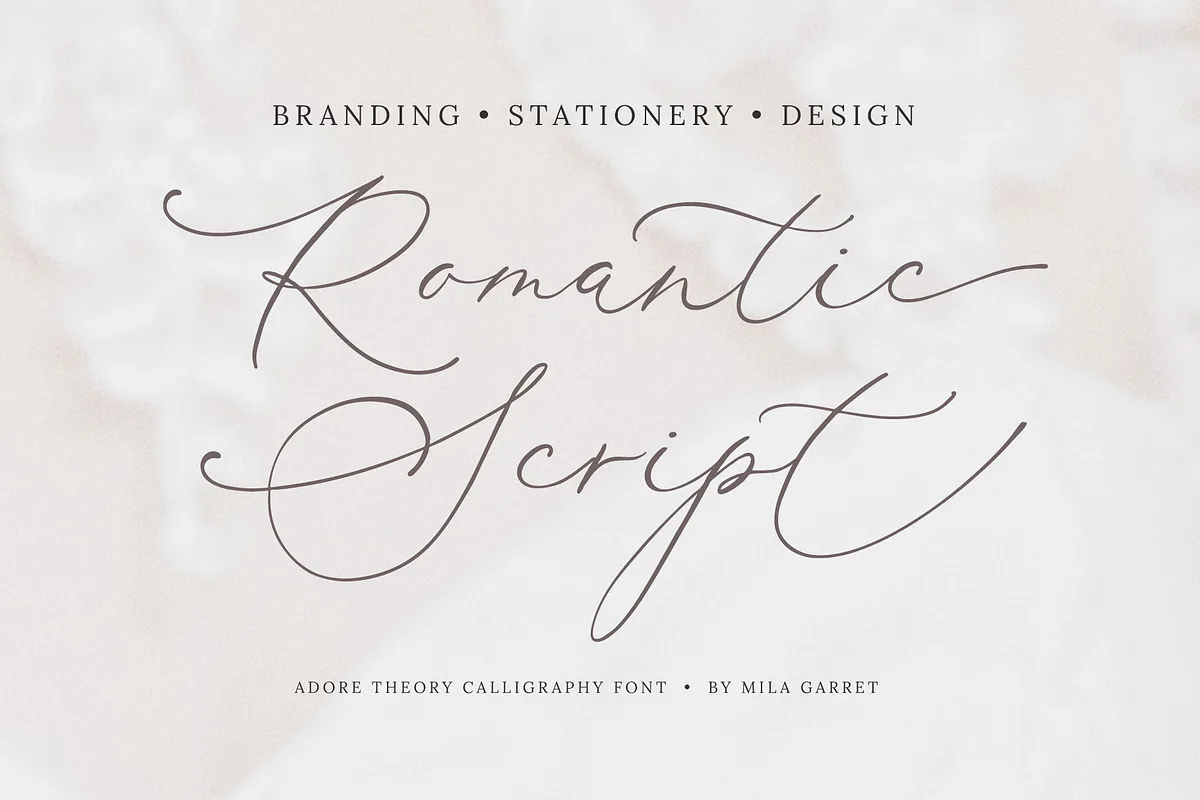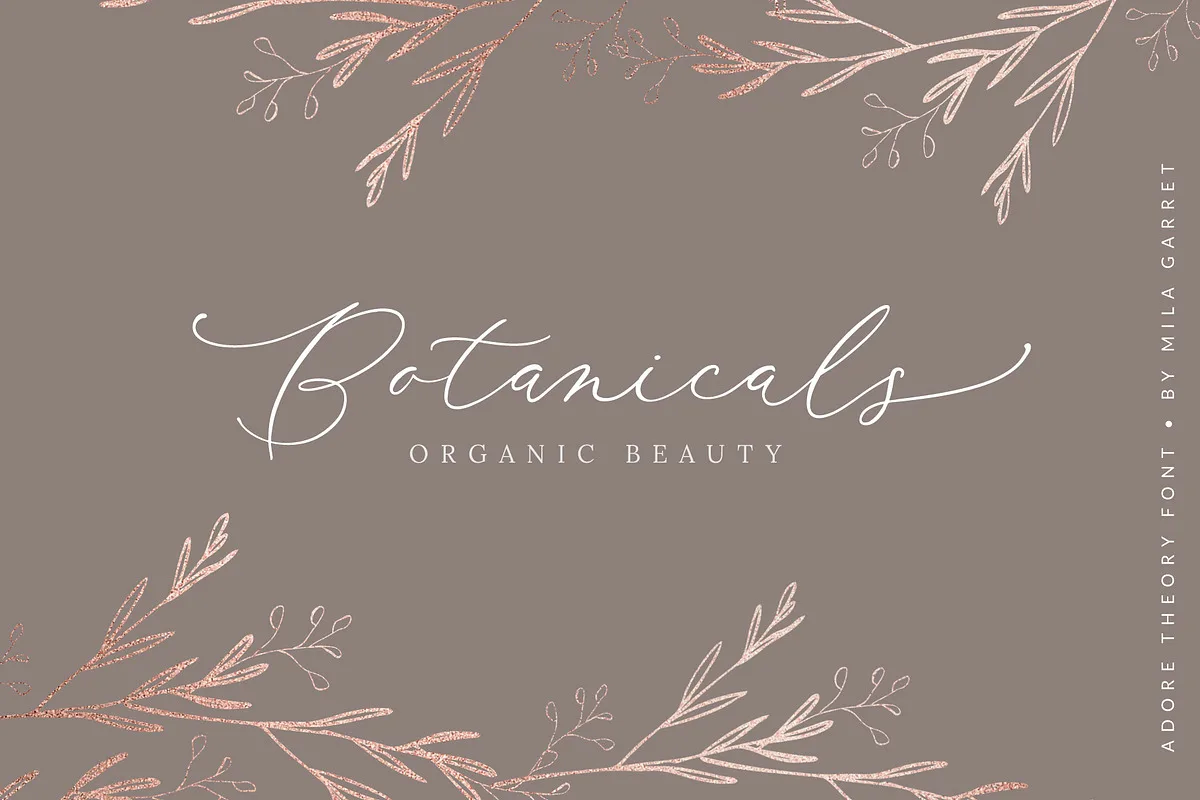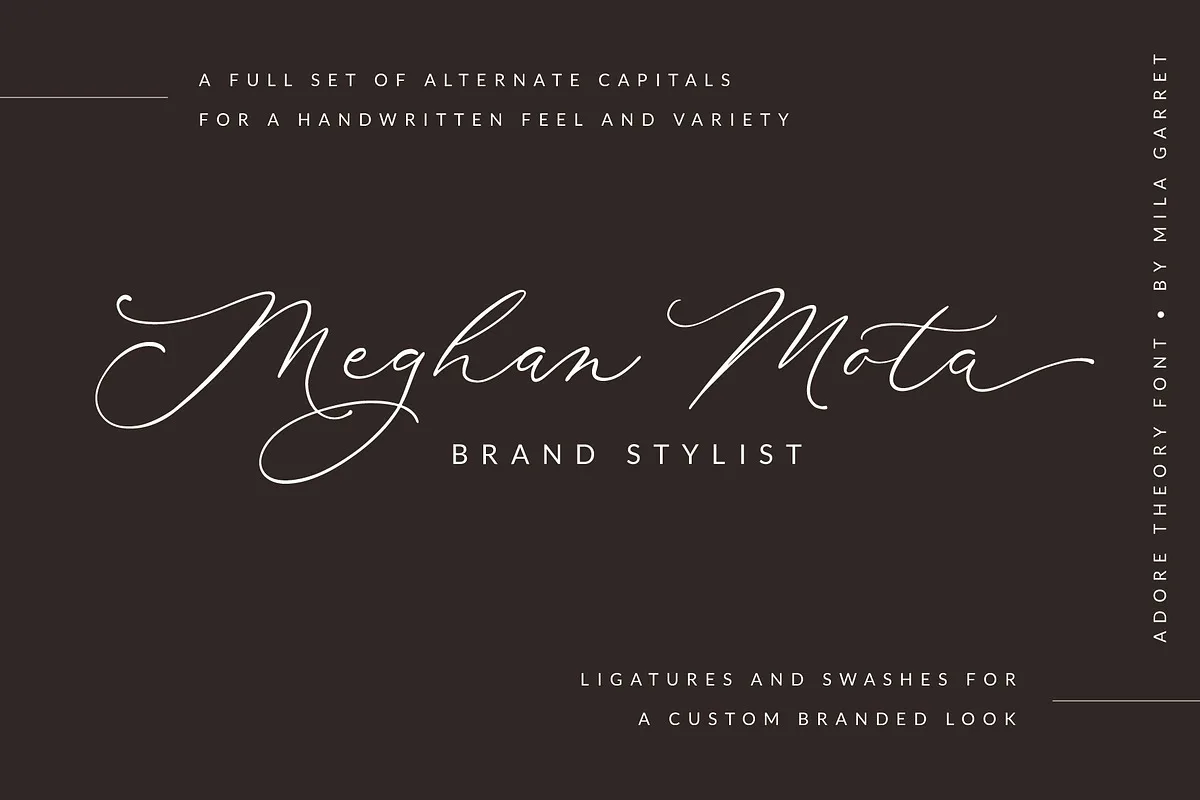
Adore Theory Font
Say hello to Adore Theory, a feature-packed modern calligraphy font perfect for elegant logos, wedding stationery, photography branding, modern websites, and more! A full set of alternate uppercase gives your letters that custom handwritten look, as well as beginning and ending lowercase swashes. Made with lots of love, it’s sure to give that special finesse to your projects!
• Full Set of standard alphabet and punctuation
• Extra set of beginning swashed capitals
• Extra set of beginning swashed lowercase
• Extra set of ending swashed lowercase
• 31 Ligatures for a natural hand-lettered look
• Extra stylistic alternates
• Multilingual Characters
Adore Theory Calligraphy Font